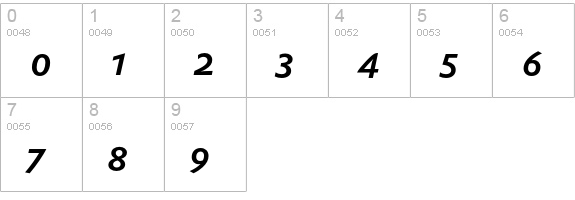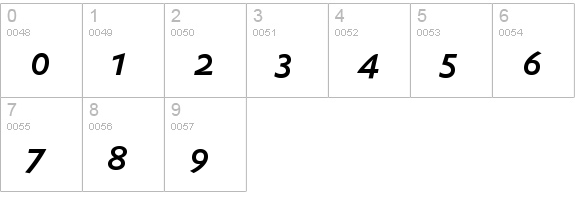
DTLProkyonTCapsMedium Italic Font Details
DTLProkyonTCapsMedium Italic is a distinctive, italic variant in the DTLProkyonTCapsMedium typeface family \xE2\x80\x94 well suited to design and typography projects.
The DTLProkyonTCapsMedium Italic font exudes a perfect blend of elegance and modernity, making it a versatile choice for various design projects. With its sleek and sophisticated appearance, this font effortlessly adds a touch of style to any text or layout. The italic style of DTLProkyonTCapsMedium enhances the overall visual impact, offering a unique and dynamic look. What sets this font apart is that it is freely available to download at FontsMarket.com, making it easily accessible for designers and creatives looking to elevate their work with a touch of sophistication. Whether used for branding, editorial design, or digital projects, DTLProkyonTCapsMedium Italic is sure to make a statement and leave a lasting impression on viewers. Experience the seamless blend of style and functionality with this exquisite font today.